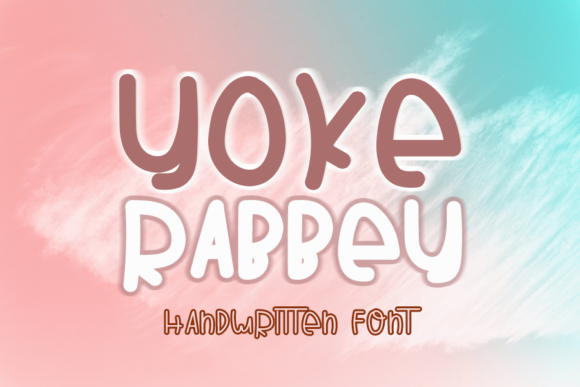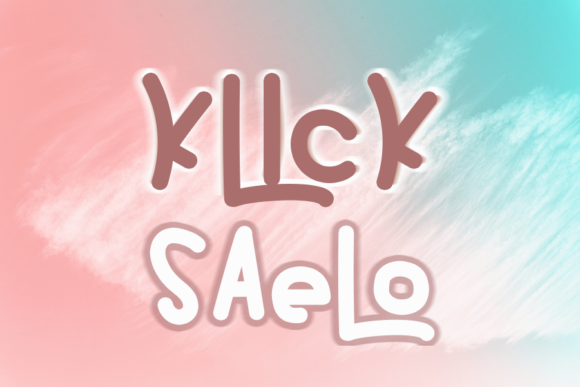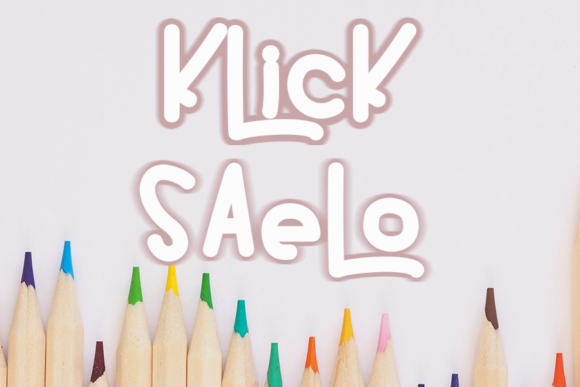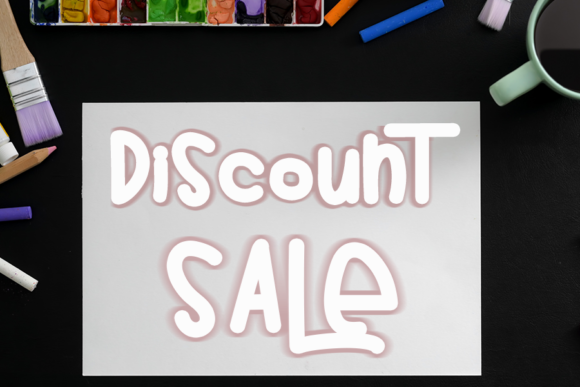
Yoke Rabbey Font
About Yoke Rabbey Font
Yoke Rabbey is a cute and casual handwritten font with an incredibly friendly feel. Whether you’re looking for fonts for Instagram or calligraphy scripts for DIY projects, this font will turn any creative idea into a true piece of art!